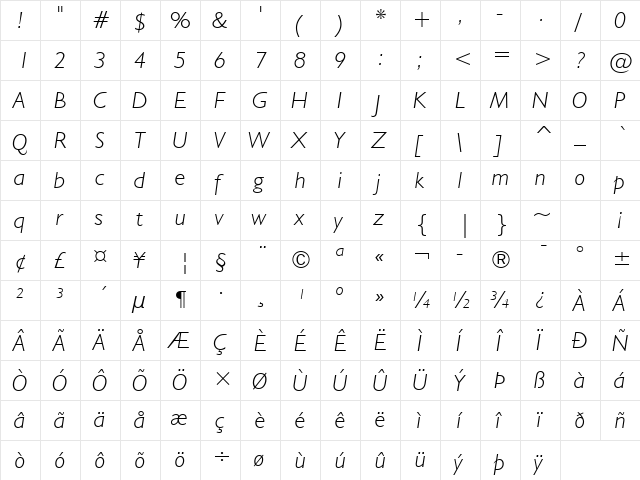
Humanst521 Lt BT Light Italic Font Preview
Humanst521 Lt BT Light Italic
Design Context for Humanst521 Lt BT Typeface
Humanst521 Lt BT is a composed and adaptable typeface that performs quietly and consistently across a wide range of design contexts. The slanted form adds forward momentum and visual energy. The delicate stroke weight brings airiness and refinement to layouts.